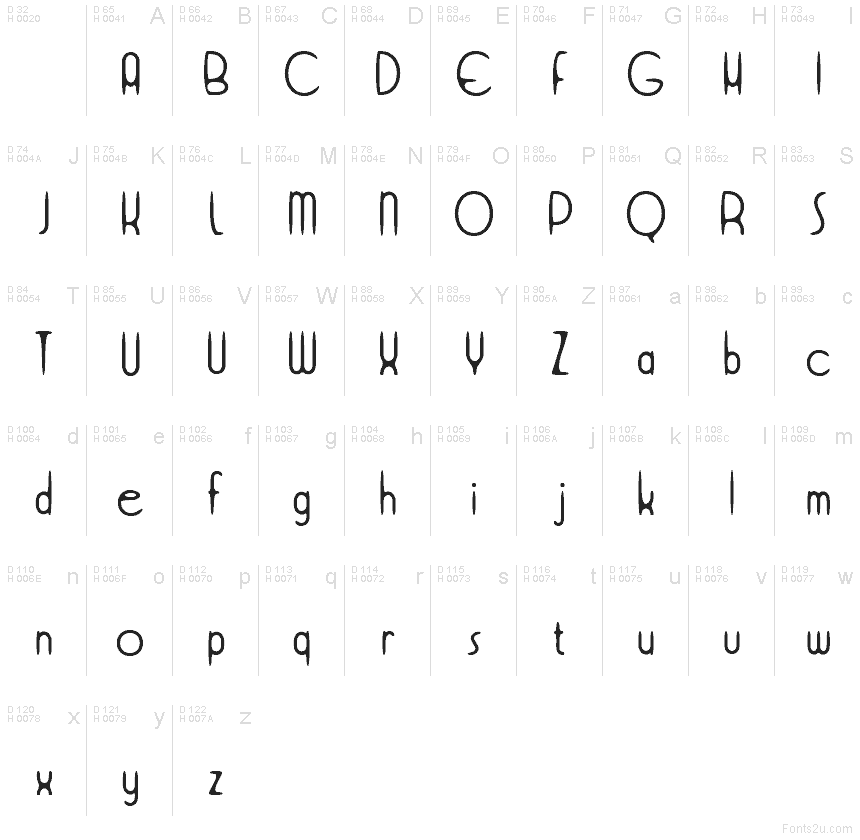
CS Hazel Drawn font by Craft Supply Co. is a free retro condensed display font from the CS Hazel family that leans into an inky, hand-drawn groove. Its defining trait is the lively wobble in each stroke—soft, slightly uneven contours that read friendly rather than messy—while the narrow proportions keep headlines tight and punchy. The texture feels lightly brushed, giving copy a human warmth that digital slickness can’t.
Using CS Hazel Drawn brings a personable spark to cafe menus, boutique packaging, craft market posters, indie zines, social posts, event flyers, and cozy brand wordmarks. The condensed rhythm saves space without losing charm, so it shines on small labels and tall titles alike. Pair this free font with a clean geometric sans for body copy, and bump the tracking a touch at large sizes to showcase its handmade cadence.